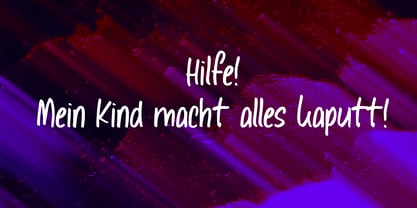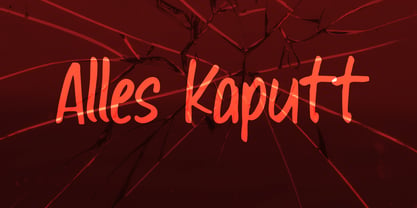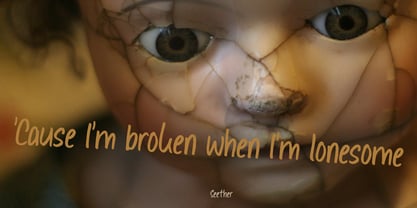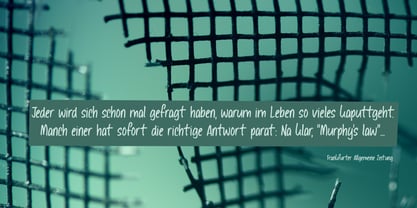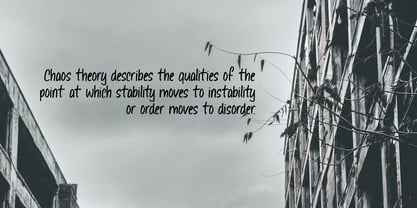
Alles Kaputt Pro
por Hanoded
La familia tipográfica Alles Kaputt Pro fue diseñada por David Kerkhoff y publicada por Hanoded. Alles Kaputt Pro contiene 2 estilos y opciones de paquete familiar. Más información sobre esta familia
Alles Kaputt means ‘everything’s broken’ in German. I always wonder why my stuff breaks so easily, especially my mobile phones (I have had 7 in the last two years). Maybe I am careless, but I believe that there is a more or less scientific explanation that chaos and destruction are far easier than harmony and creation. I am no scientist, so don’t take my word for it!
Alles Kaputt is a nice script font. I made it with a felt tip pen I borrowed from the kids.
Use it for texts on product packaging, book covers and websites. Or, whatever you fancy!
Hanoded is run by Dutchman David Kerkhoff. His fonts are a mishmash of styles, as he just creates whatever pops into his head. You will find a lot of brush fonts in his collection, as his favourite tools are brushes and Chinese ink, with cartoon style fonts and script fonts complementing his repertoire. Aside from making fonts, David occasionally guides tours in far-flung places, renovates his '30's house and tries reasoning with his wife and (teenage) kids. Not an easy task!